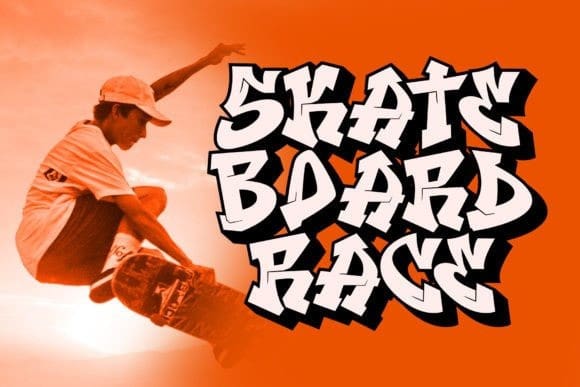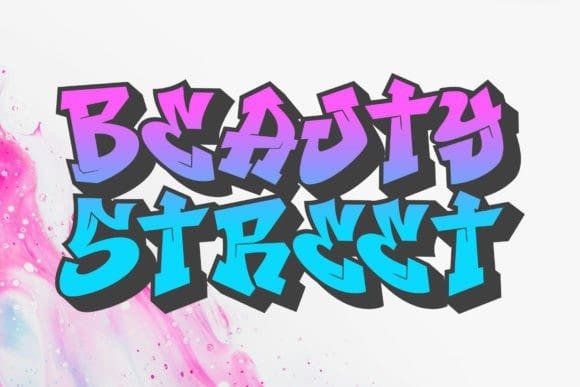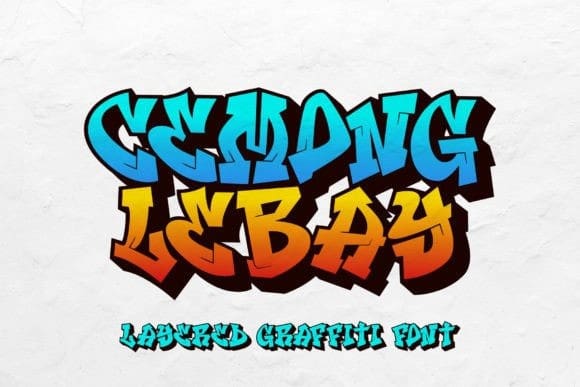
Cemong Lebay Font
Cemong Lebay Font is a bold display font that draws inspiration from the dynamic energy of street art graffiti. Perfect for projects related to urban culture, this font is versatile and can be used for various purposes. Whether you’re working on a movie poster, a documentary, a logo, or a book cover, Cemong Lebay comes with a layered style that adds a unique flair to make your designs stand out. Elevate your creative ideas with this font and witness them come to life in a bold and impactful way!